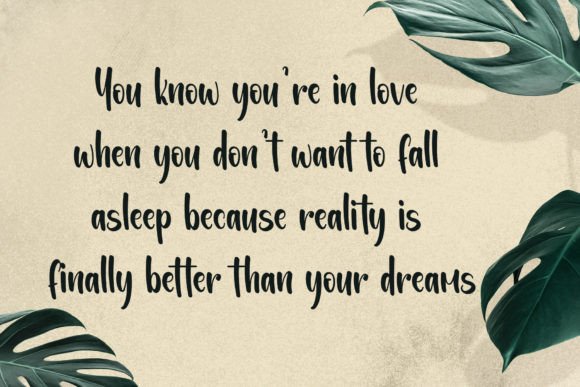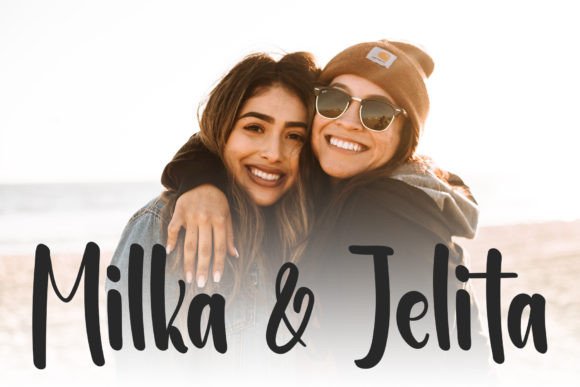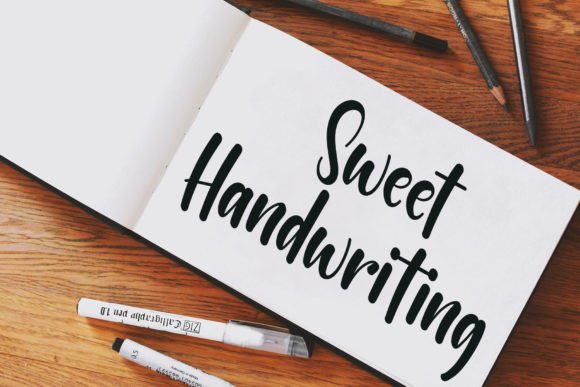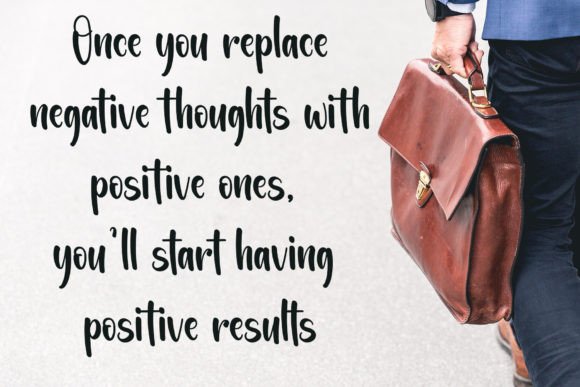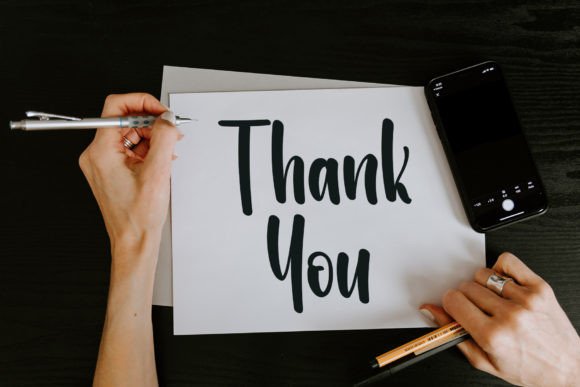
Introduction to Garland Font
Garland is a beautiful handwritten font perfect for product packaging, branding projects, magazines, social media posts, weddings, or just used to express words above the background.
Key Features of Garland Font